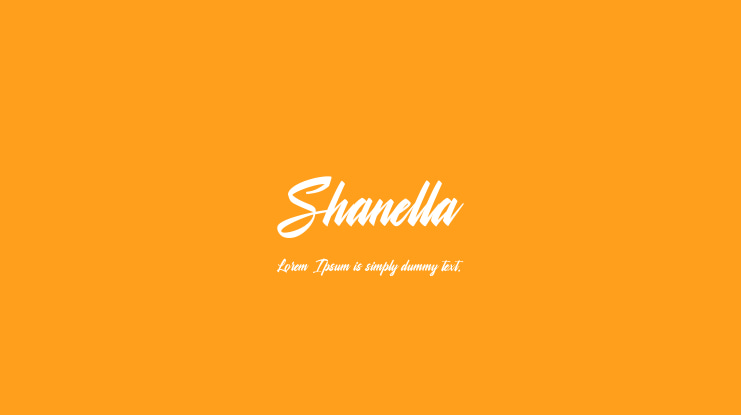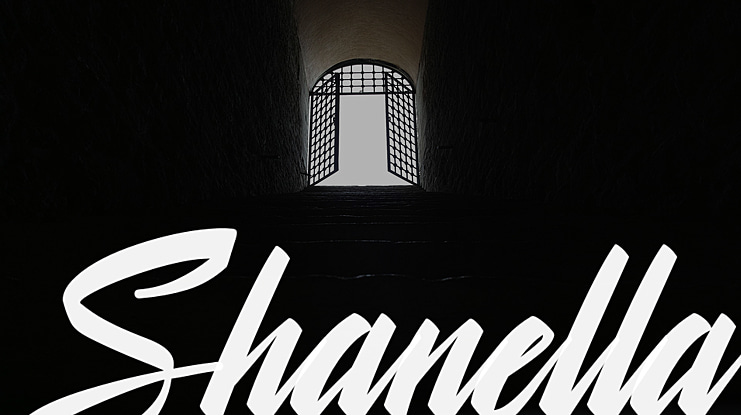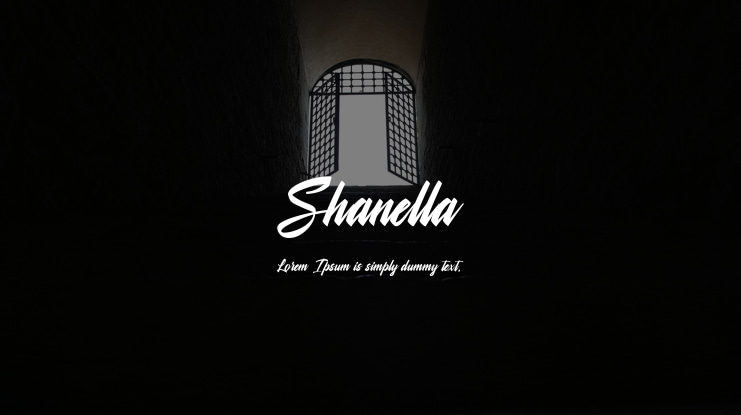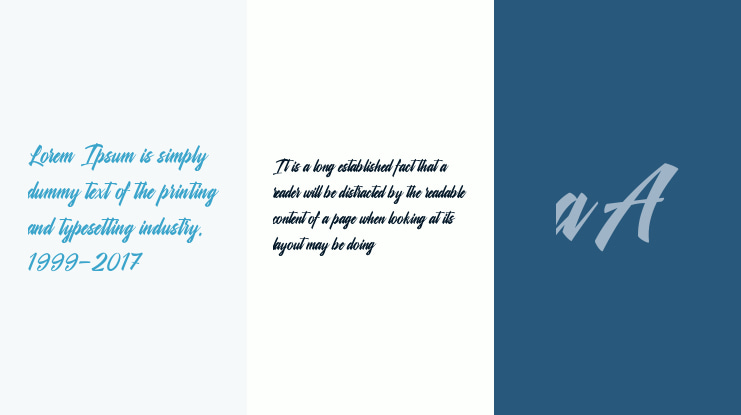
Shanella Font
Shanella a fonts of Shanella stylish calligraphy that have a varied base line, fine lines, classic and elegant touches. Can be used for various purposes. Such as title, signature, logo, wedding invitation, t-shirt, letterhead, nameplate, label, news, poster, badge etc.